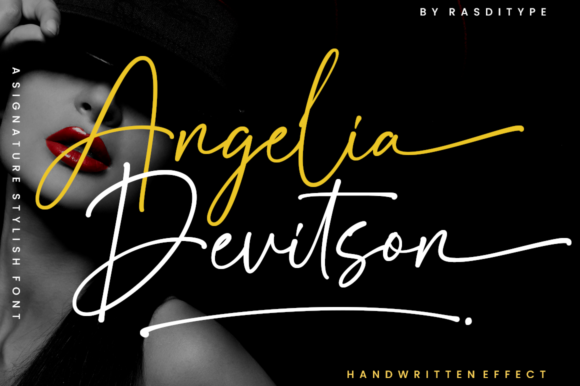
The Elusive Font: A Love Story with Angelia Devitson
I’ll never forget the time I was working on a wedding invitation project, and my client asked for a font that was “elegant, modern, and sophisticated.” I scoured the internet, tried countless fonts, but nothing seemed to fit the bill. That was until I stumbled upon Angelia Devitson, a beautiful and refined script font that stole my heart. In this article, I’ll share my experience with this stunning font, its features, and how to make the most of it in your designs.
An Honest Review: What I Love and What I Don’t
- ✅ Elegant and modern design that’s perfect for logos, branding, invitations, and more
- ✅ Highly versatile and can be used for various design projects
- ✅ Beautifully crafted to add a touch of sophistication to any design
- ⚠️ Limited availability of certain characters, which can be a bit tricky to work with
- ⚠️ May require some practice to master the use of glyphs and swashes
The Story Behind Angelia Devitson
Angelia Devitson is a script font designed with elegance and sophistication in mind. The font’s creator aimed to craft a font that would be perfect for wedding designs, invitations, and other special occasions. With its modern and refined look, Angelia Devitson has become a popular choice among designers and crafters.
PUA (Private Use Area) encoding is a way of encoding fonts that allows for the inclusion of additional characters and glyphs. This means that users can access a wider range of characters and swashes, making it easier to create unique and customized designs.
Q: Is Angelia Devitson suitable for body text?
While Angelia Devitson is a beautiful font, it’s best suited for headlines, titles, and short paragraphs. Its elegant and refined design may not be the best choice for body text, which requires a more straightforward and readable font.